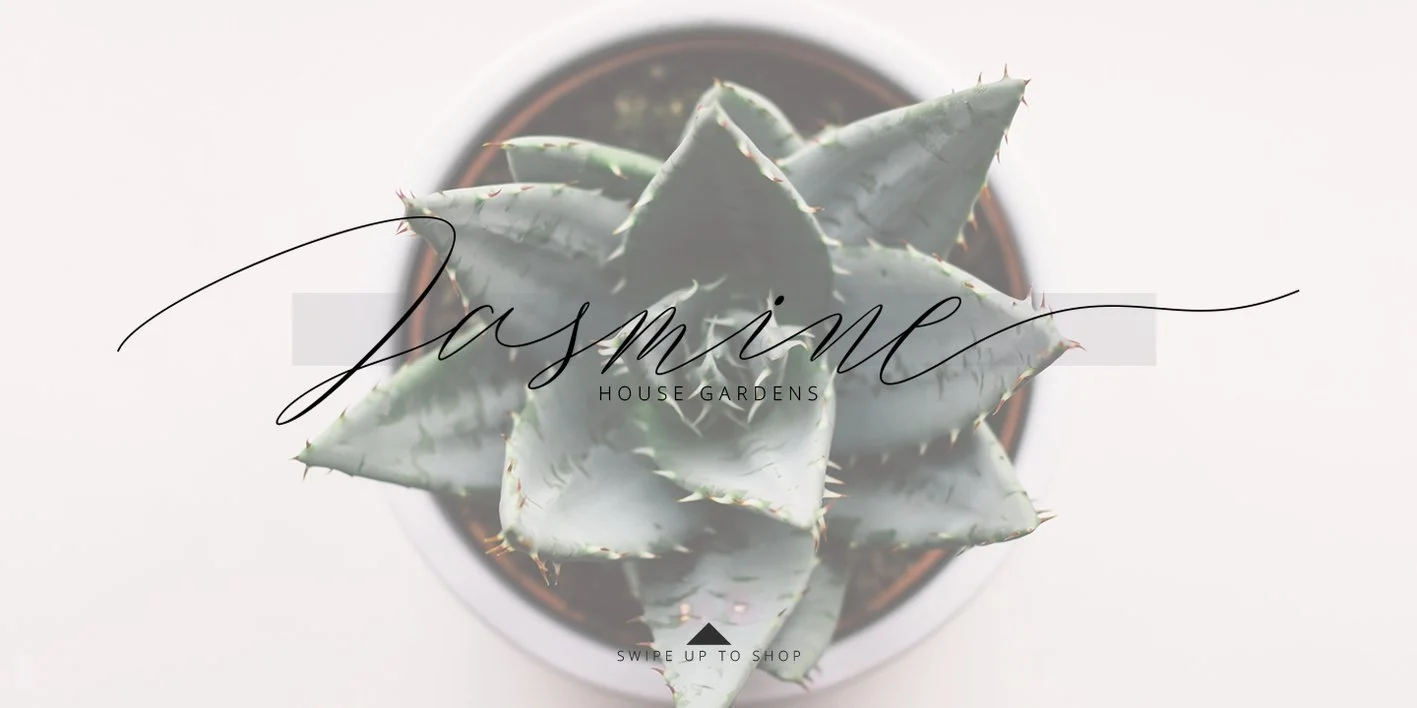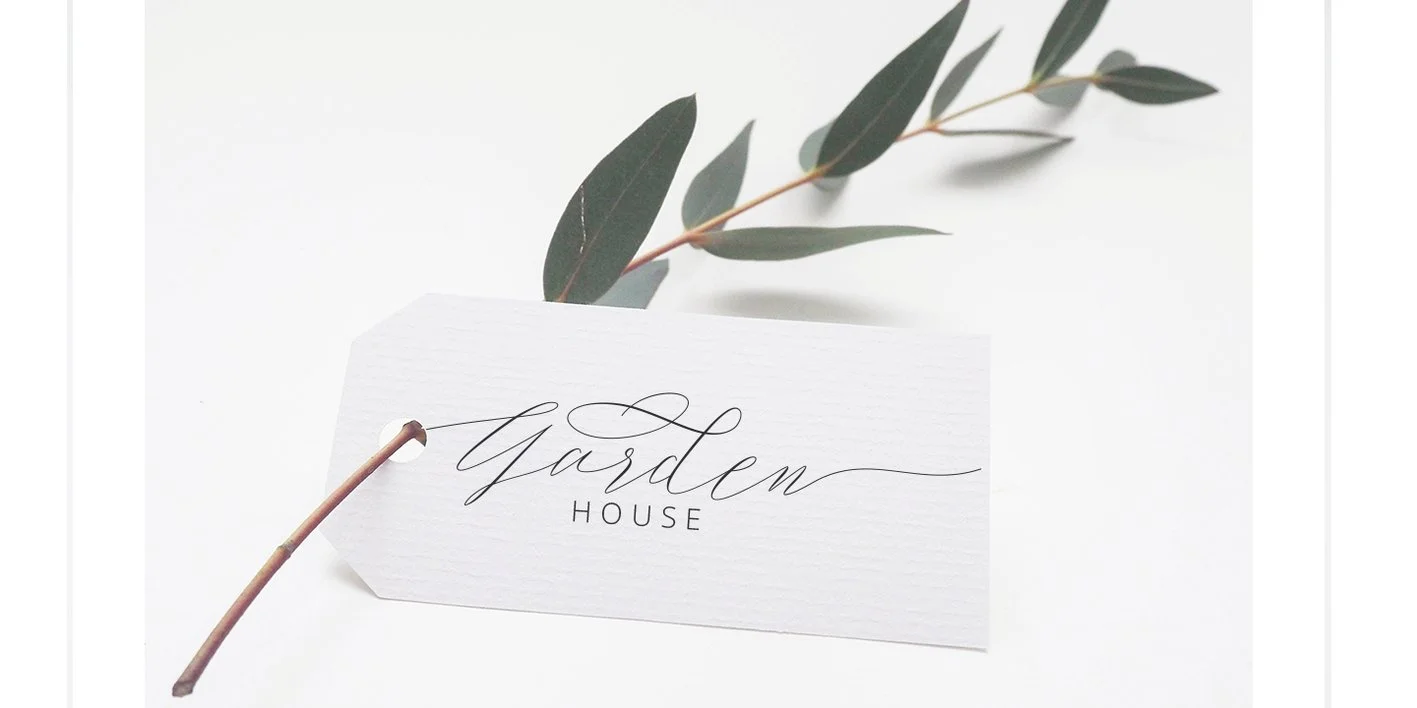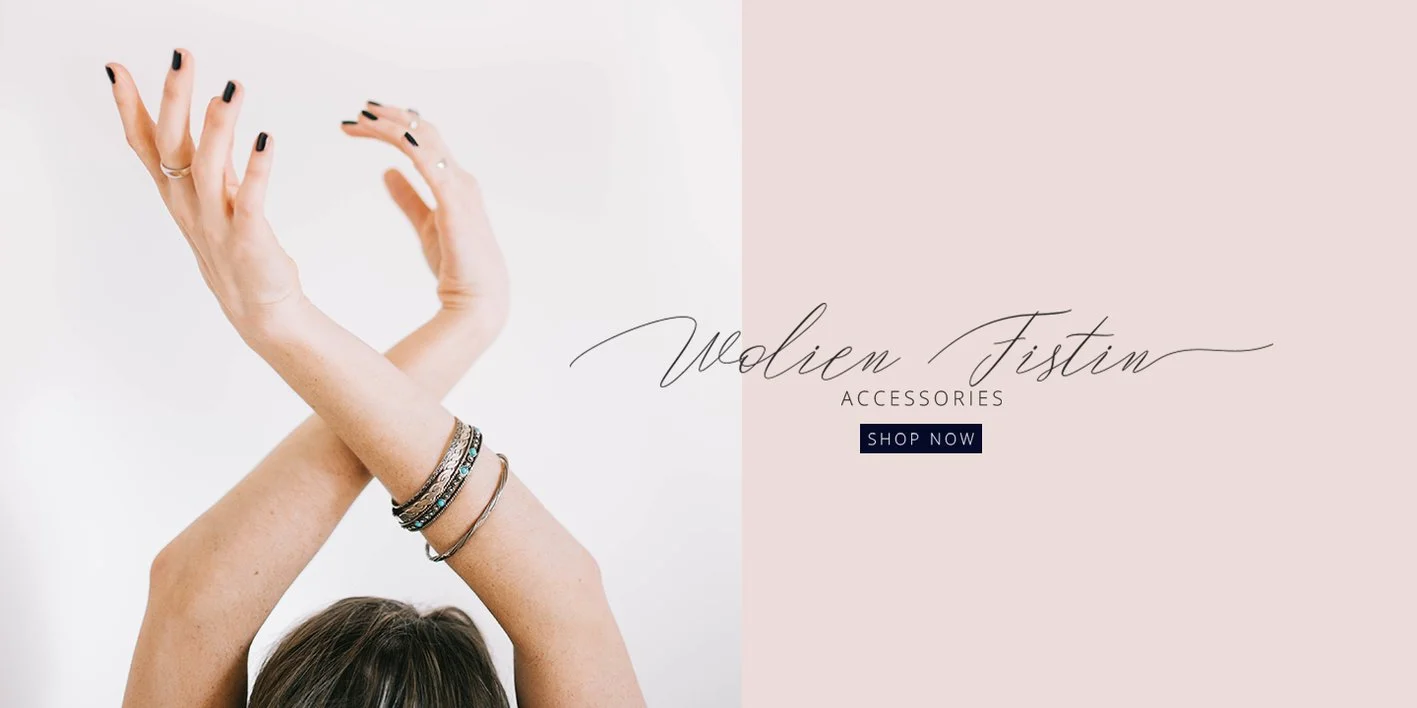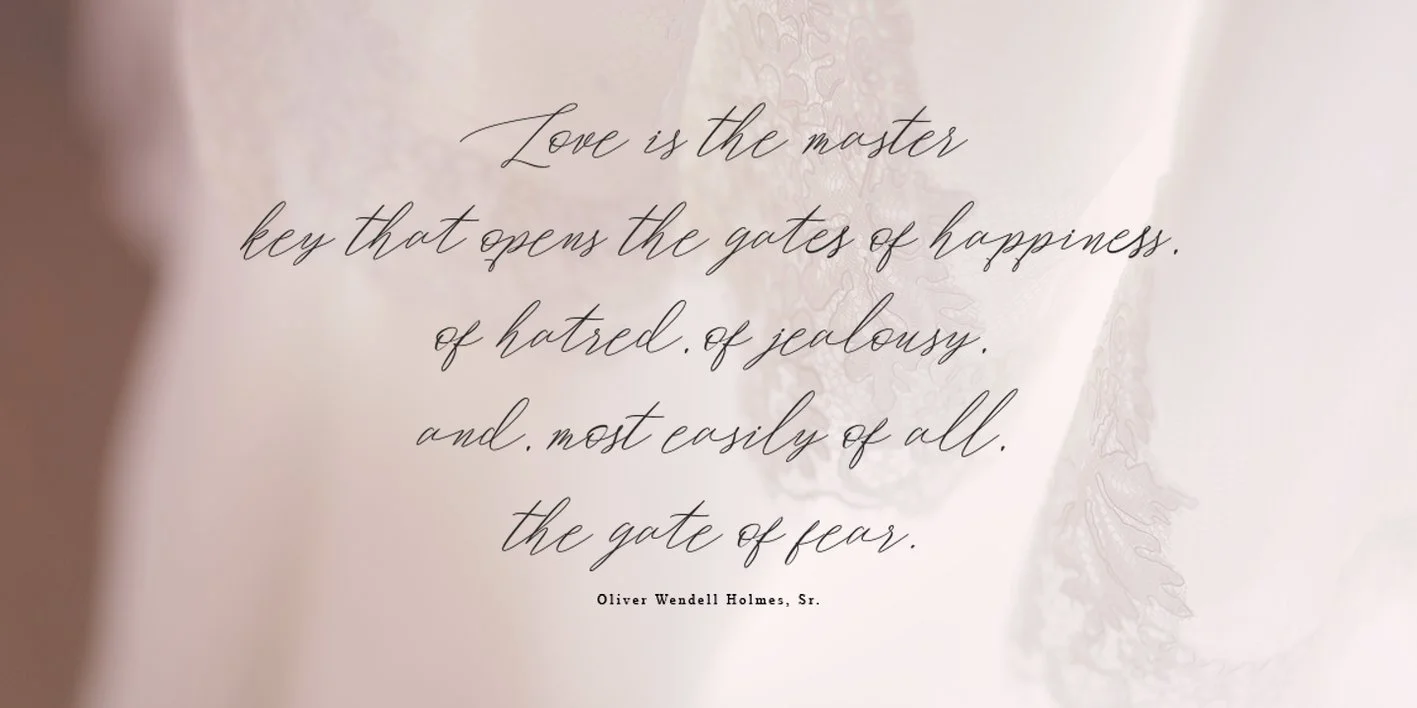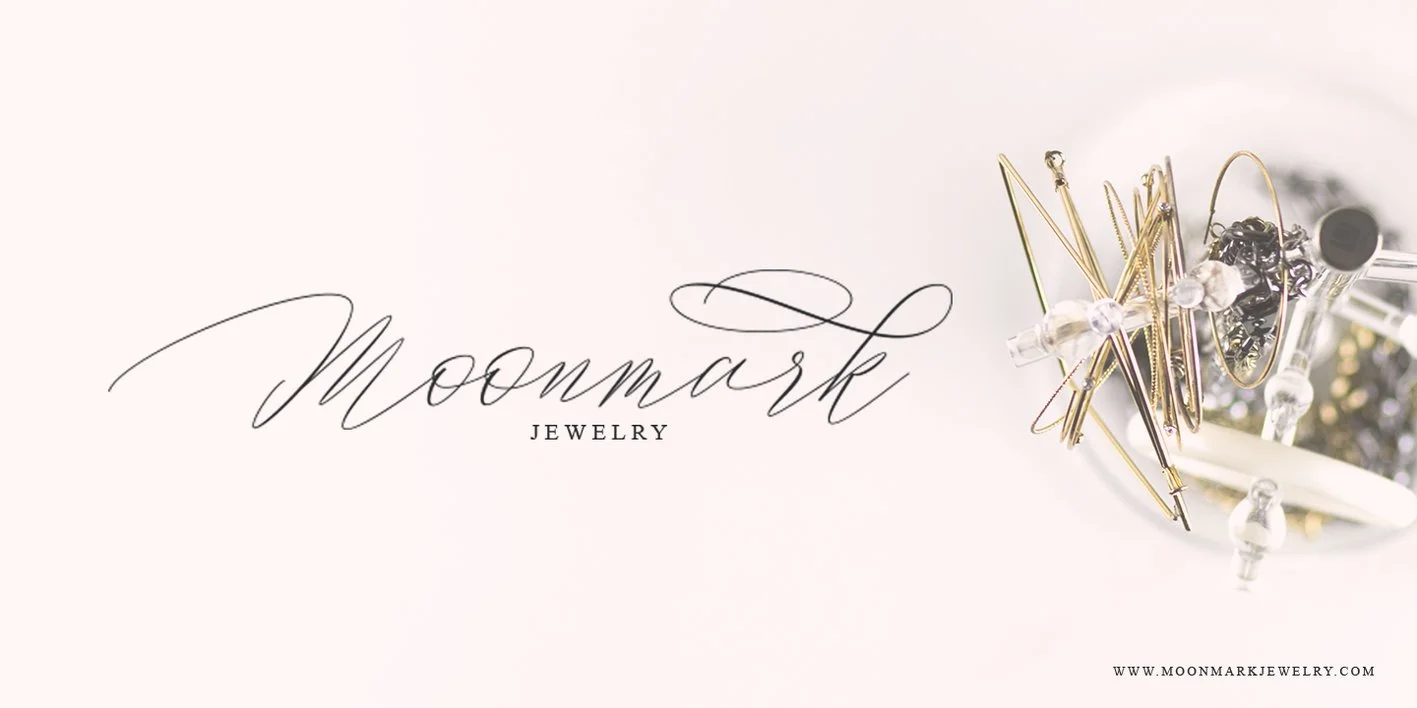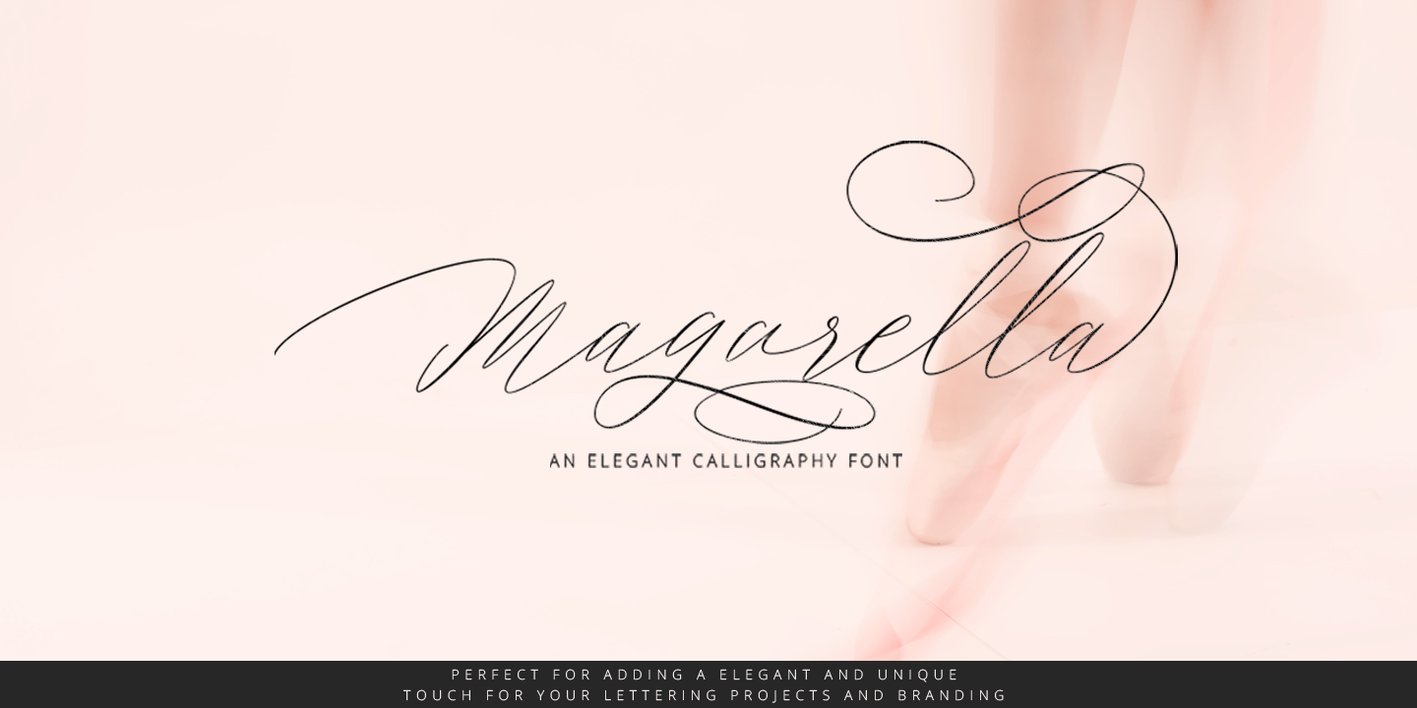
Magarella Script Font
Magarella Script Font is perfect for romantic wedding invitations, feminine beauty branding, boutique fashion labels, handcrafted product packaging, personal blog headers, artisan craft labels, intimate greeting cards, romantic restaurant menus, delicate stationery design, whimsical children's books, elegant social media graphics, and charming projects that require flowing, handwritten typography with romantic sophistication and personal warmth.
What makes Magarella Script Font so exciting is its enchanting romantic charm and handcrafted authenticity that captures the intimate beauty of personal handwriting with elegant flourishes and graceful personality. This typeface features flowing script letterforms with natural variations and delicate curves that create an immediate sense of warmth, intimacy, and heartfelt expression. The font's romantic character and artisanal appeal make it perfect for brands and projects that want to communicate love, creativity, and the kind of personal touch that makes communications feel genuinely heartfelt and memorable.
Magarella Script Font typically comes in multiple weights and styles including Regular, Bold, and Light variations. Many versions also include decorative swashes, romantic ligatures, and elegant flourishes that enhance the font's handcrafted functionality and provide designers with comprehensive tools for creating personalized, romantically-inspired typography compositions that feel authentically hand-lettered.
Create heartfelt connections with the romantic elegance of Magarella Script Font. This charming typeface brings together handcrafted authenticity with contemporary design functionality, making it an essential tool for creative professionals who need to create memorable, emotionally resonant communications that speak to audiences seeking beauty, romance, and personal expression. The font's intimate character ensures your projects will convey genuine warmth and artistic sensibility.
Whether you're designing romantic branding, artisanal product materials, or personal communications, Magarella Script Font delivers exceptional charm and handcrafted authenticity that connects with audiences who appreciate romantic aesthetics and personal artistic expression. Its flowing, organic appearance works beautifully with soft color palettes and delicate imagery, creating designs that feel both intimate and professionally crafted.
The lovingly crafted letterforms of Magarella Script Font demonstrate exquisite attention to the subtle details that make handwritten typography both beautiful and emotionally engaging. Each character has been designed to maintain the spontaneous, organic quality of personal handwriting while ensuring excellent legibility and professional functionality, making it particularly valuable for romantic communications where emotional connection is essential.